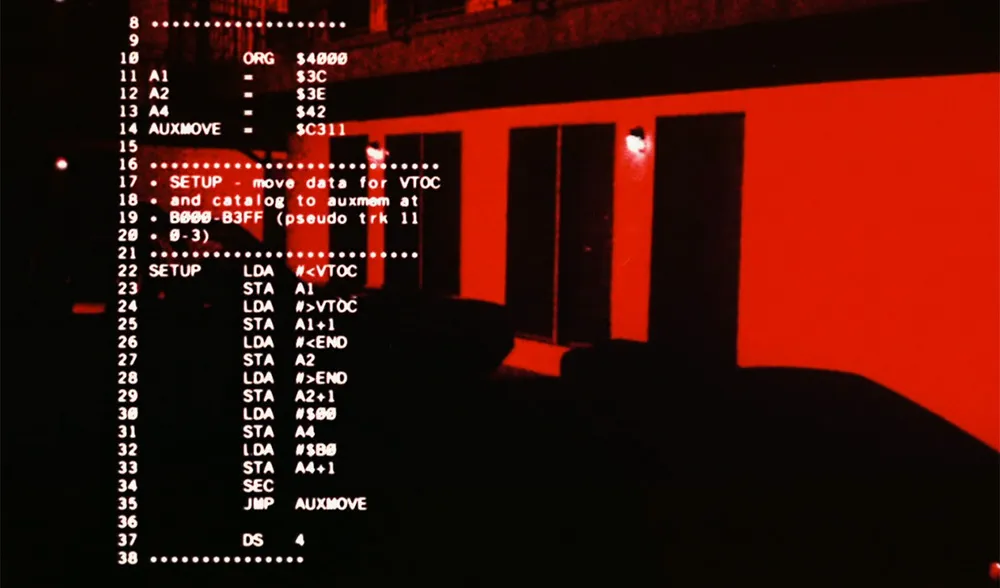
The Apple Terminator II+
This one is incredibly nerdy, but I think it fits my standards for anachronistic use of type in a movie. Besides, I just love it.
In The Terminator (MGM, 1984), a cybernetic assassin from the year 2029 is sent back in time to 1984 to kill the mother of the rebel leader who will eventually lead humans in victory in a war against the cyborgs, thereby preventing the rebel leader from being born and ensuring the cyborgs’ victory instead. Whatever. As we follow this killing machine on his relentless rampage, we are given short glimpses of what it’s like to see through the eyes of a cyborg:
In case you don’t recognize it (and, unless you are a regular Slashdot reader, why would you?), the highly technical looking computer readouts in his vision display are actually source code printouts for an Apple II+ program that ran in a computer magazine (Nibble) in the early 1980s. Plus, it looks like it was printed on a daisywheel printer. Also used were listings of COBOL programs. COBOL was once a popular computer language for writing accounting software.
I remember noticing the out-of-place computer code when I watched the movie for a second time back in 1984, but I always thought it was source code from the Atari Operating System (Atari used the same microprocessor as the Apple II series). A quick check with Google turned up the correct info. This bit of trivia seems to be well-known in certain circles.